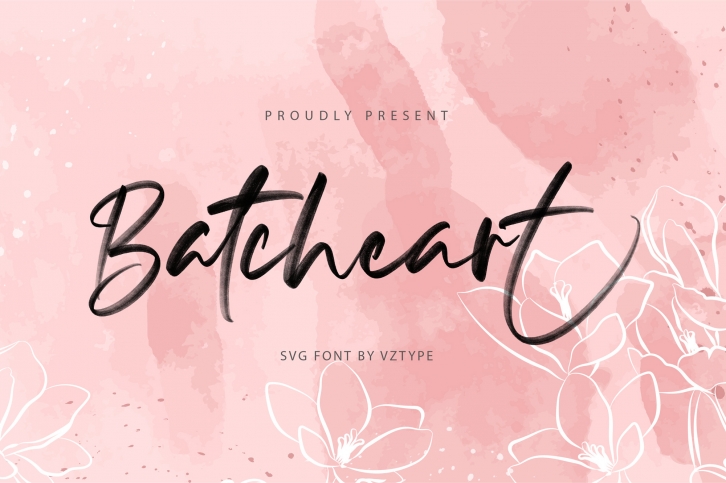
Batcheart is a trendy and chic handwritten font. Fall for its ravishing style and use it to create gorgeous wedding invitations, beautiful stationary art, eye-catching social media posts, and much more!Â